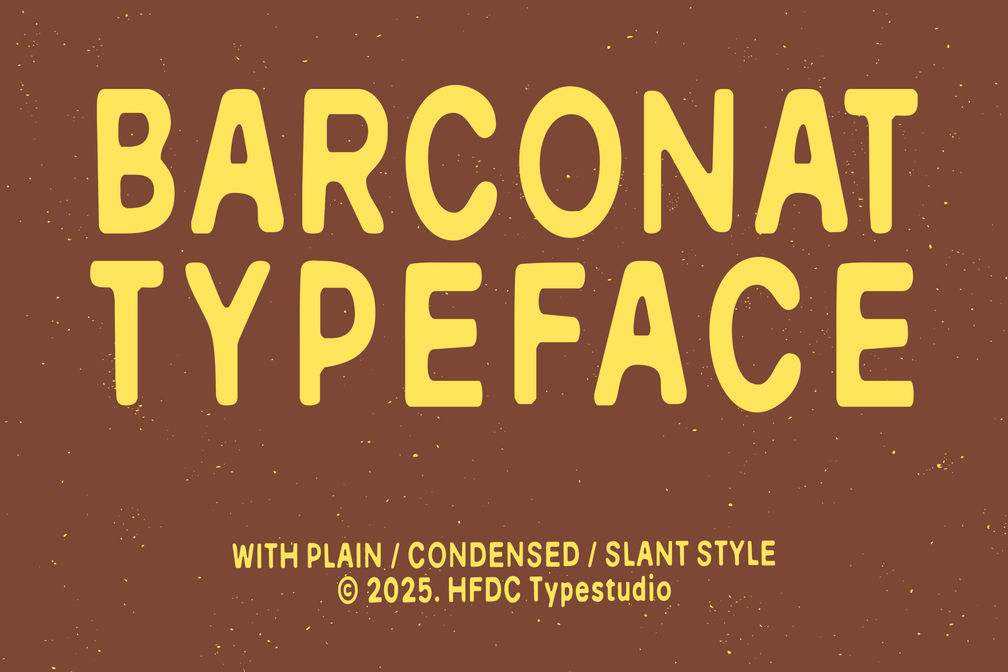
Barconat Rough Sans Serif
Barconat Typeface
Barconat Poster 1 Scaled
Introducing Barconat Rough Sans Serif, a versatile font that effortlessly combines a vintage charm with a modern twist. This condensed sans serif typeface features a unique blend of rough textures and smooth edges, making it an ideal choice for various design projects. Whether you’re crafting a logo, packaging, or branding materials, Barconat Rough brings a soft yet distinct personality to your text. Its rounded forms and bold italic options provide a captivating visual appeal, while the light style offers a gentle touch for delicate designs.
With a comprehensive glyph set of over 200 characters, Barconat Rough is perfect for multilingual projects, ensuring your message resonates across different languages and cultures. Available in TTF, OTF, WOFF, and WOFF2 formats, this font seamlessly integrates into any creative workflow. Elevate your next design with a typeface that embodies a playful yet professional vibe, making it suitable for everything from artisanal product labels to modern websites. Choose Barconat Rough Sans Serif to add a distinctive flair that captures attention and communicates effectively.
• Uppercase and Lowercase
• Punctuation and Number
• Multilingual Support